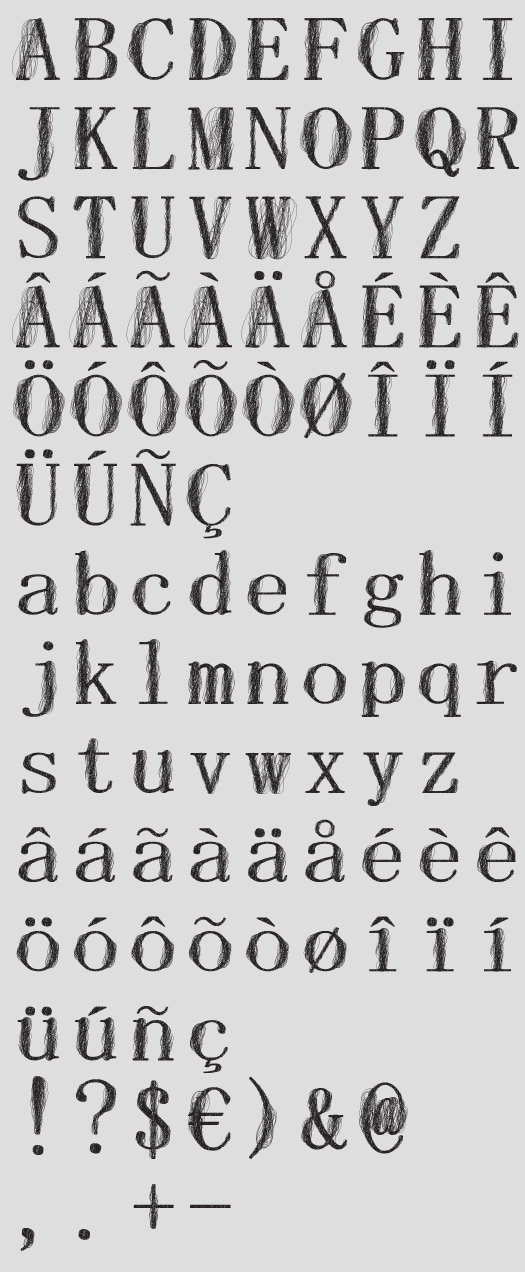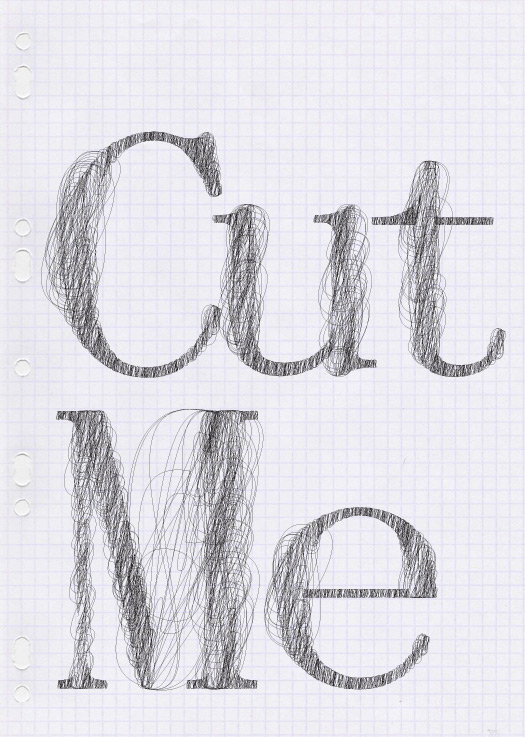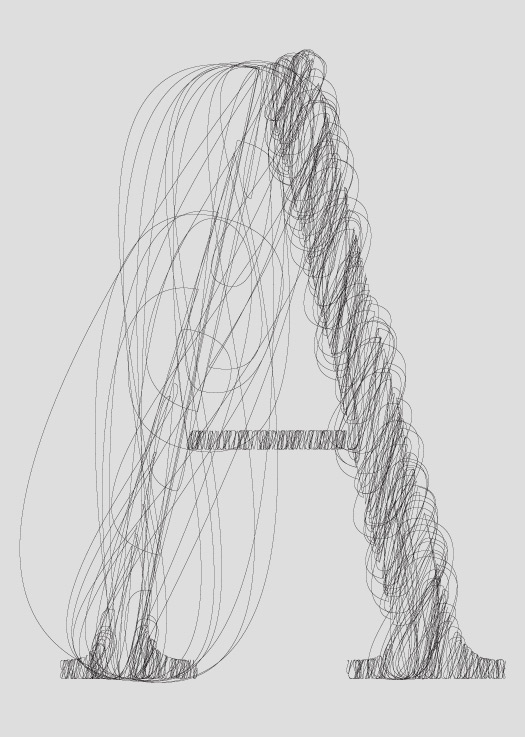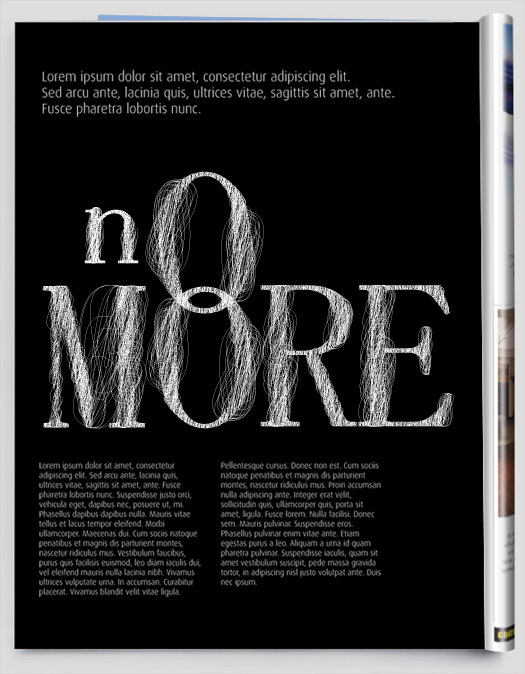
Hair vector
Hairy Hairvector font looks hand-made, done by patiently drawing different rounds by pen, providing you in whites and blacks, this font is quite multifunctional. You can create interesting combinations while playing with the size and the positions of the letters.